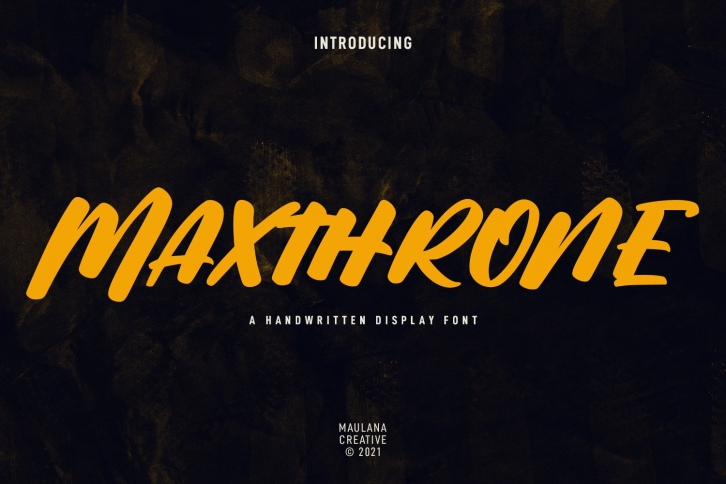
Maxthrone is a cool, relaxed and street styled display font. This font is suitable for designs such as t-shirts, sportswear, logos, advertisements, clothing, and more.